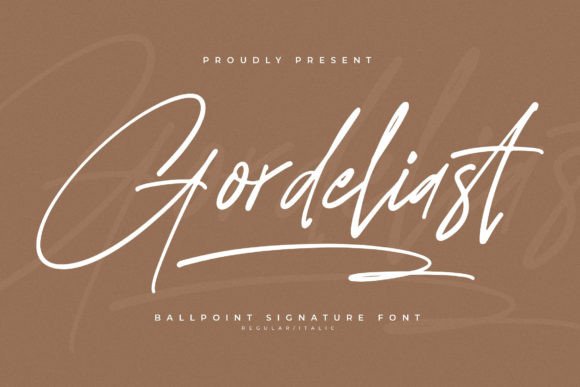
Introducing Gordeliast Font: The Epitome of Modern Elegance for Your Creative Endeavors.
Unleash the captivating spirit of your designs with Gordeliast Font, a meticulously crafted signature typeface that exudes timeless beauty and sophistication. Its graceful strokes and striking presence make it the perfect choice for a wide array of projects, including logos, branding, home décor designs, product packaging, mugs, quotes, posters, shopping bags, t-shirts, book covers, name cards, invitation cards, greeting cards, labels, photography, watermarks, special events, and any other endeavor where an exquisite script font is desired.
With Gordeliast Font, you'll find yourself immersed in a world of creative possibilities. Its flowing curves and elegant flourishes add a touch of visual intrigue to your designs, capturing attention and leaving a lasting impression. Whether you're creating a logo for your new business, designing homeware items with a personal touch, or crafting stunning posters for your next event, Gordeliast Font effortlessly elevates your projects to new heights of sophistication.
As a script font, Gordeliast Font possesses an inherent versatility that allows it to adapt seamlessly to a variety of styles and themes. Its modern and elegant aesthetic blends effortlessly with contemporary designs, while its timeless appeal makes it equally suited for classic and traditional projects. The result is a font that transcends boundaries, empowering you to create designs that resonate with your unique creative vision.